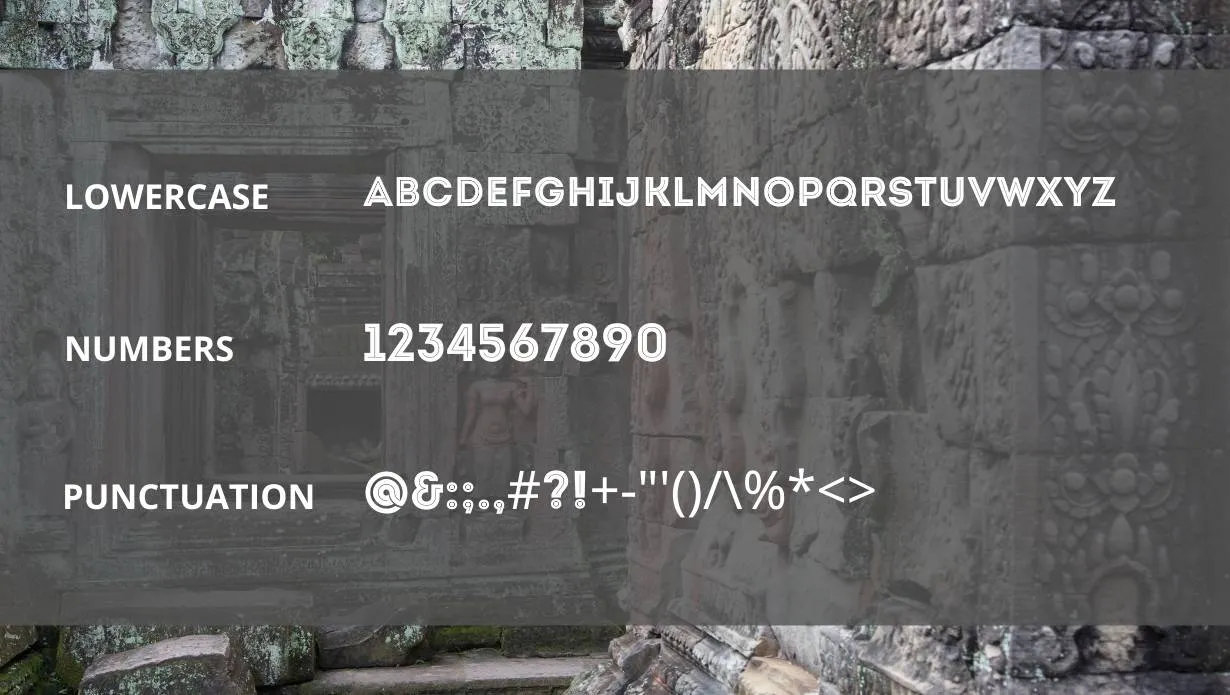
Intro Inline Font is an excellent method for injecting personality into your text. Utilizing a distinct font for your inline text can help it pop and leave a lasting impression. This article will delve into what Intro Inline Font entails, how it operates, and provide some guidance on maximizing its effectiveness.
This font is perfect for those who want to add a little bit of fun and personality to their text. If you’re looking for a font that is unique and different, then this Font is a great option. This font style is best for pairing functions that you can make a very attractive pair with Blippo Font.
- Intro Inline Regular
View of Intro Inline Font
Intro Inline Font Info
| Name | Intro Inline Font |
| Designer | SvetSimov |
| Style | Display |